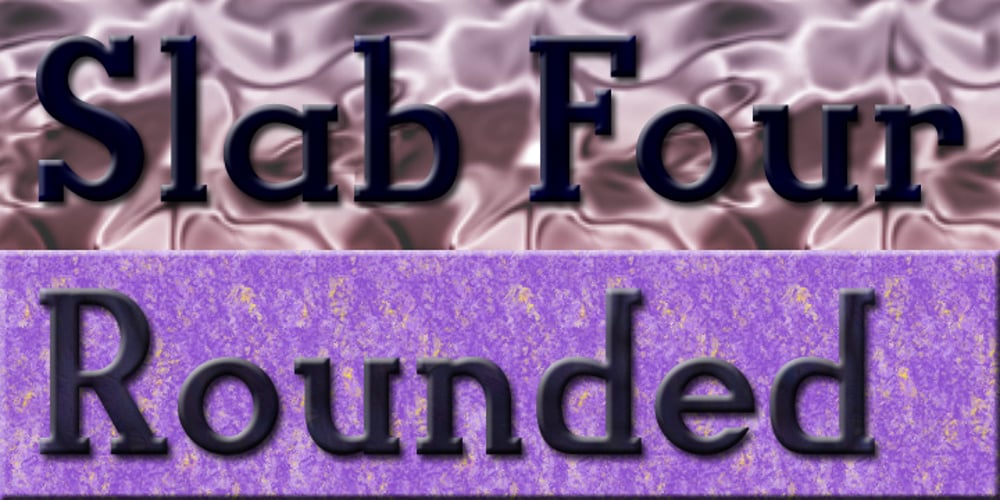
Slab Four Rounded
Slab Four Rounded font
Slab Four Rounded Font Family was designed by Jordan Davies and published by Wooden Type Fonts. Slab Four Rounded contains 1 styles and family package options. An original slab serif design inspired by the slab serif designs of the 19th century, with a modern geometric look.